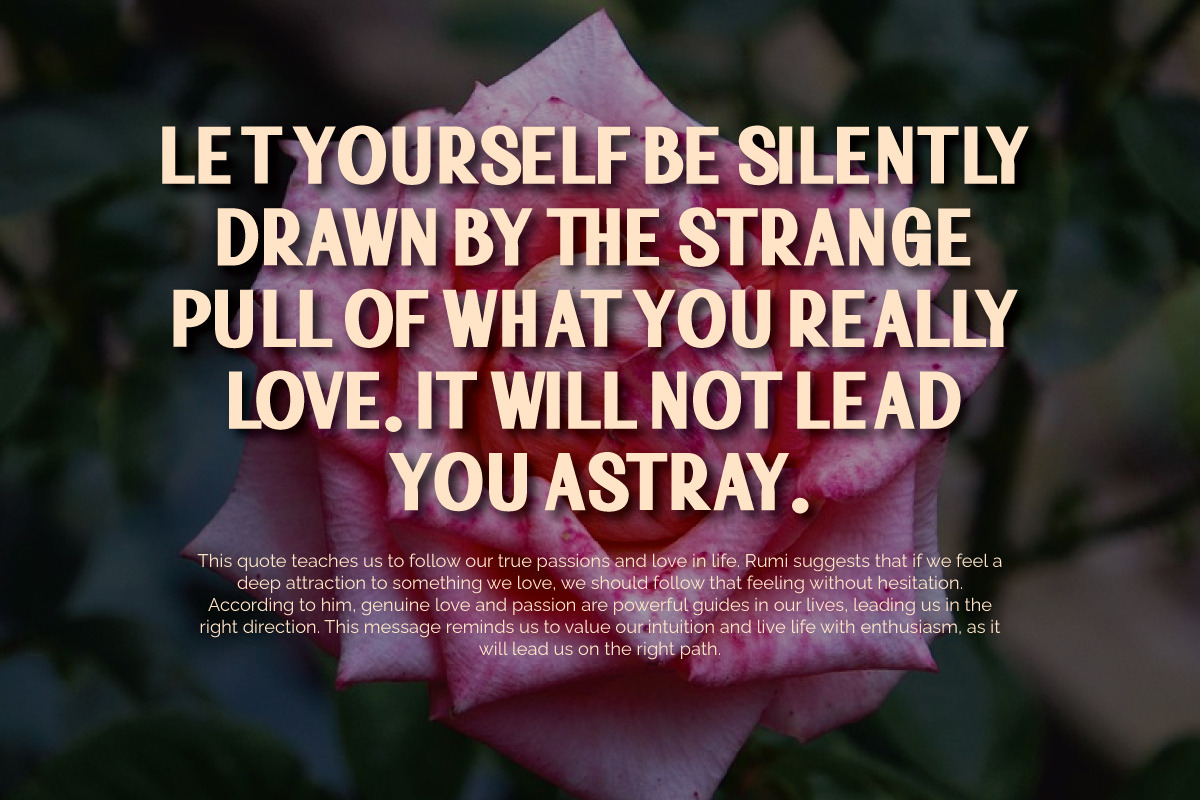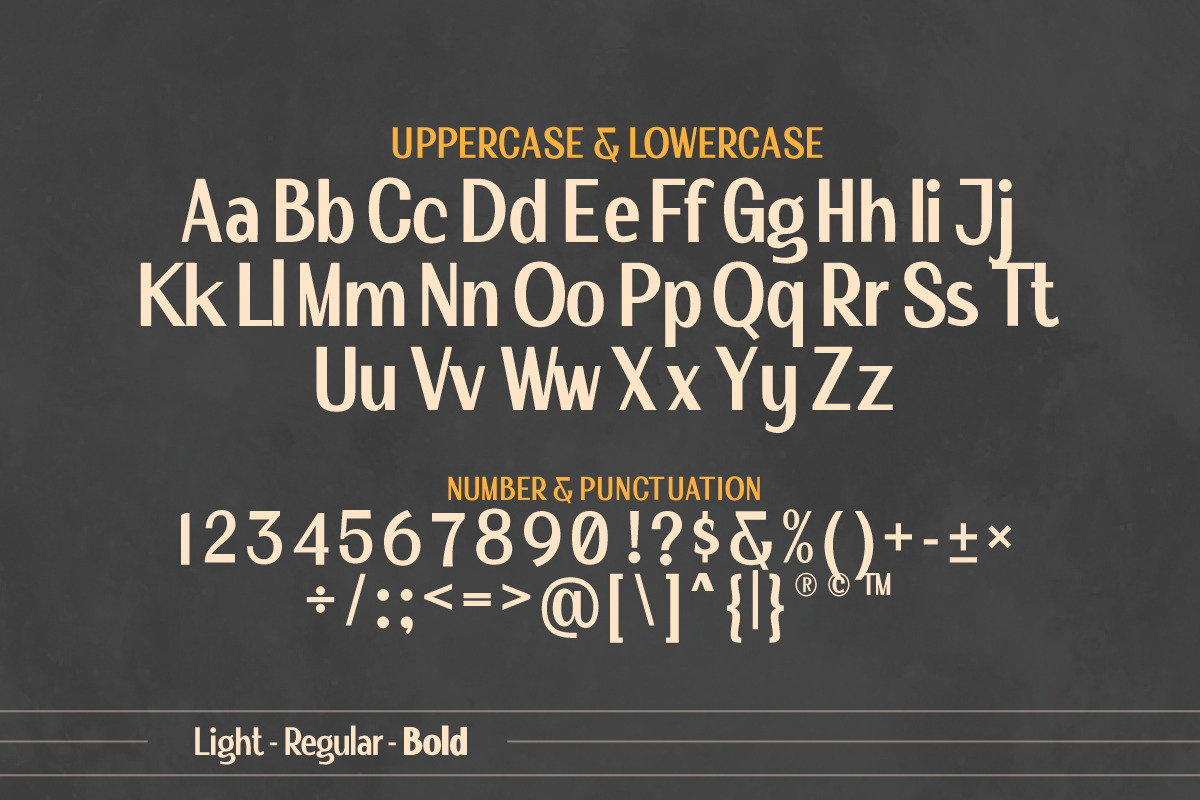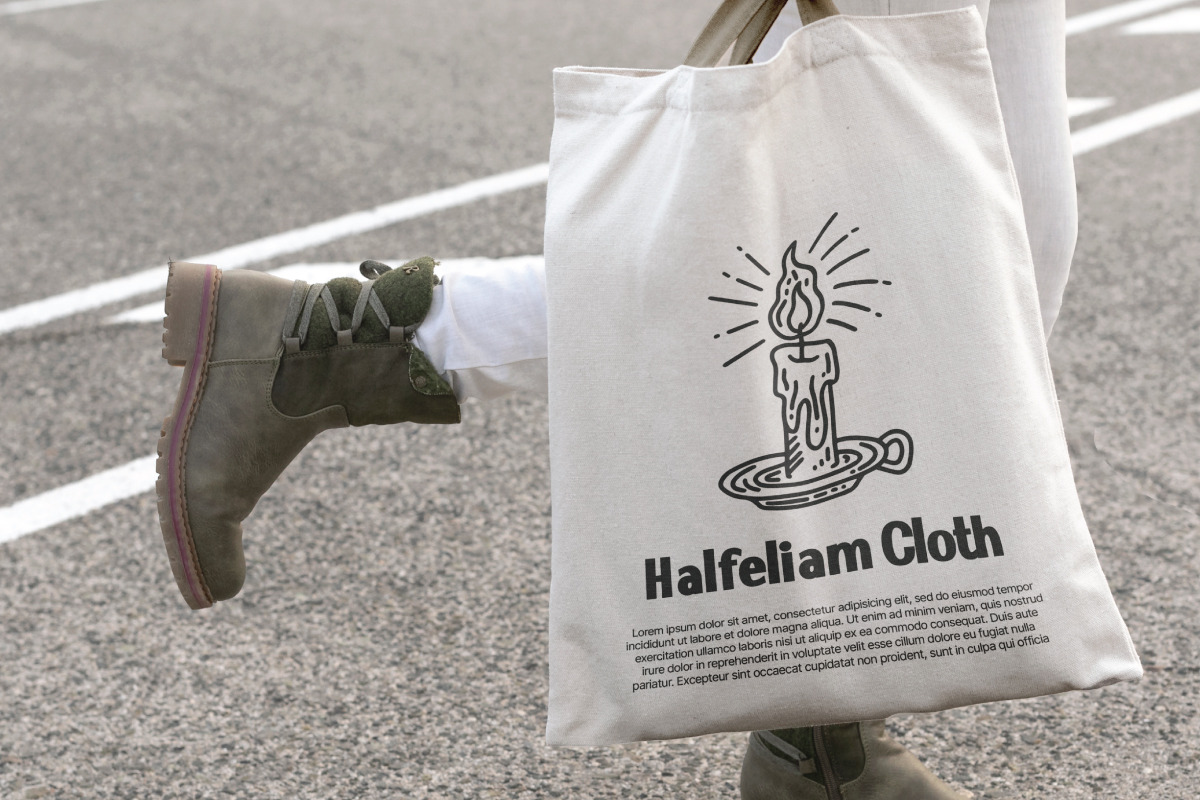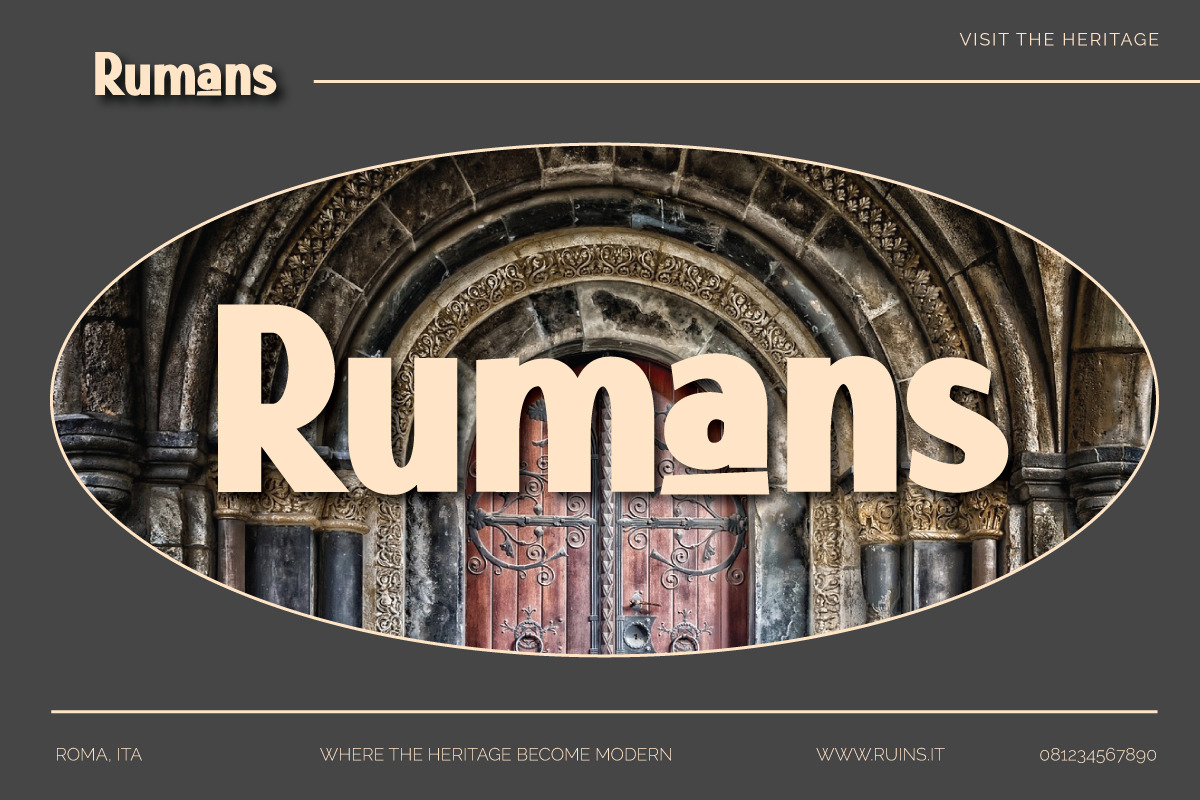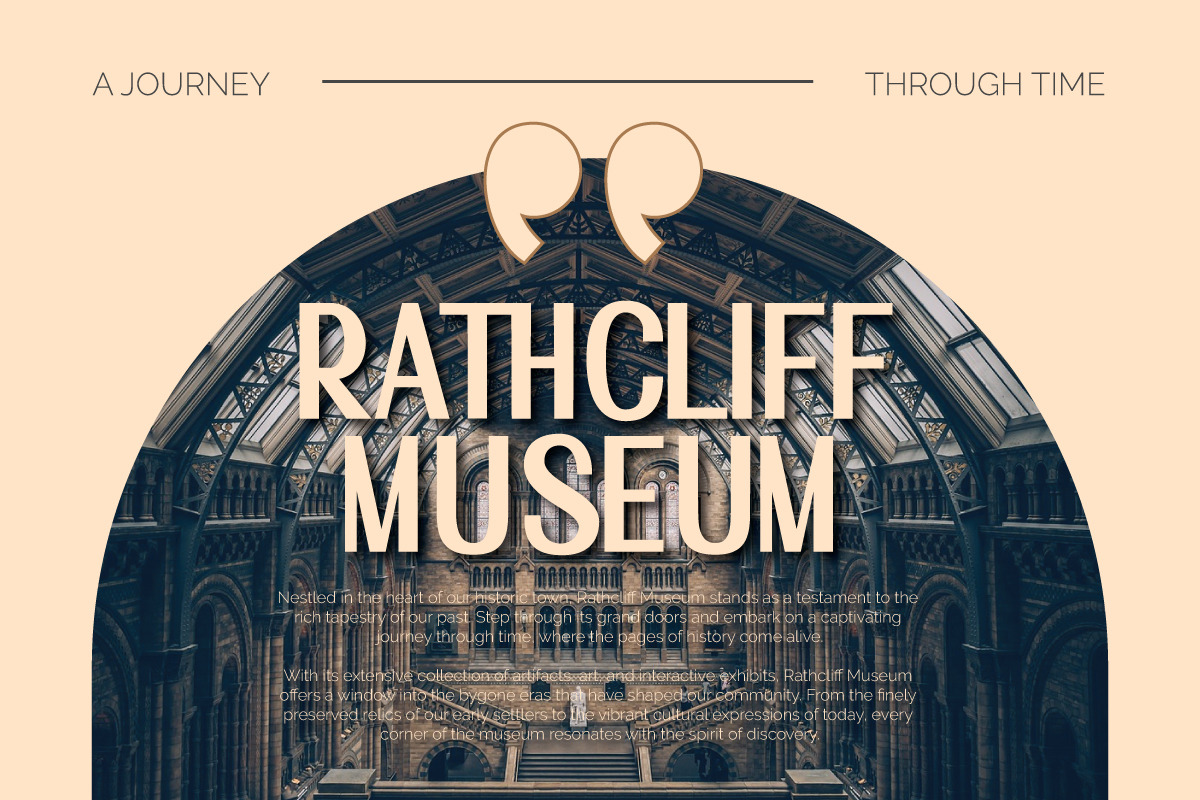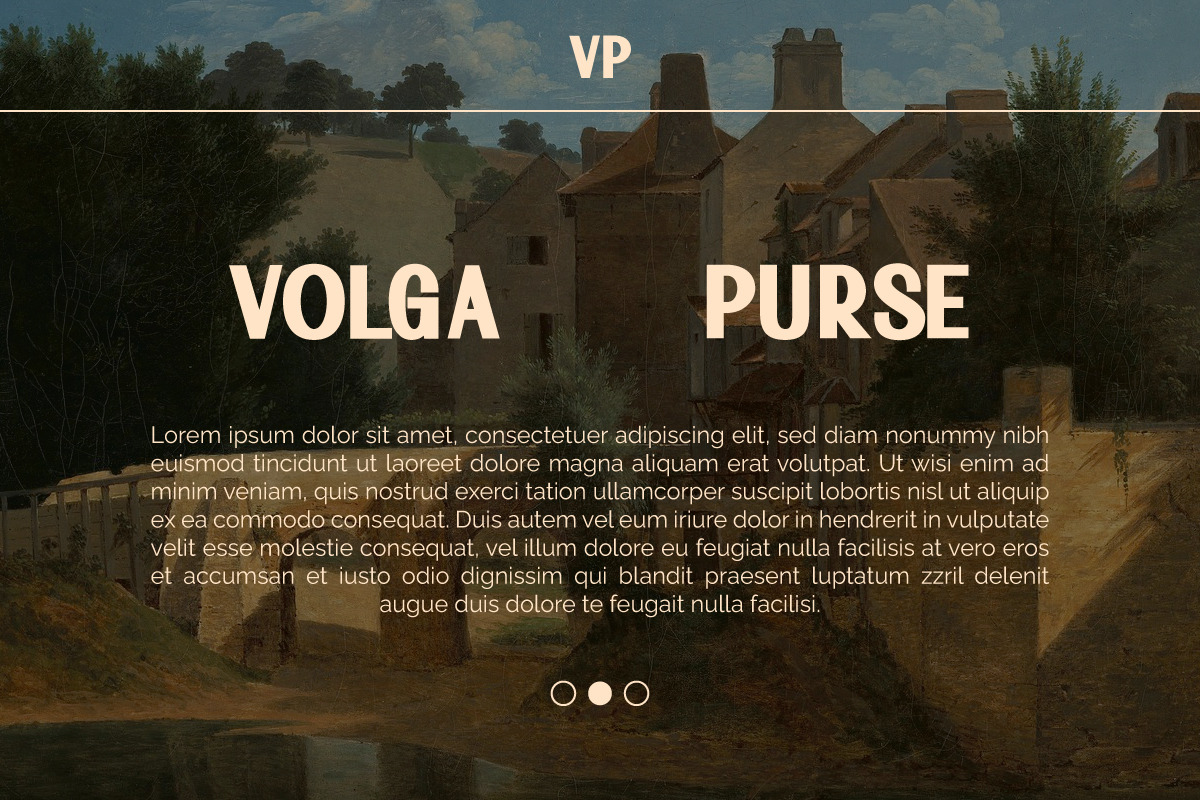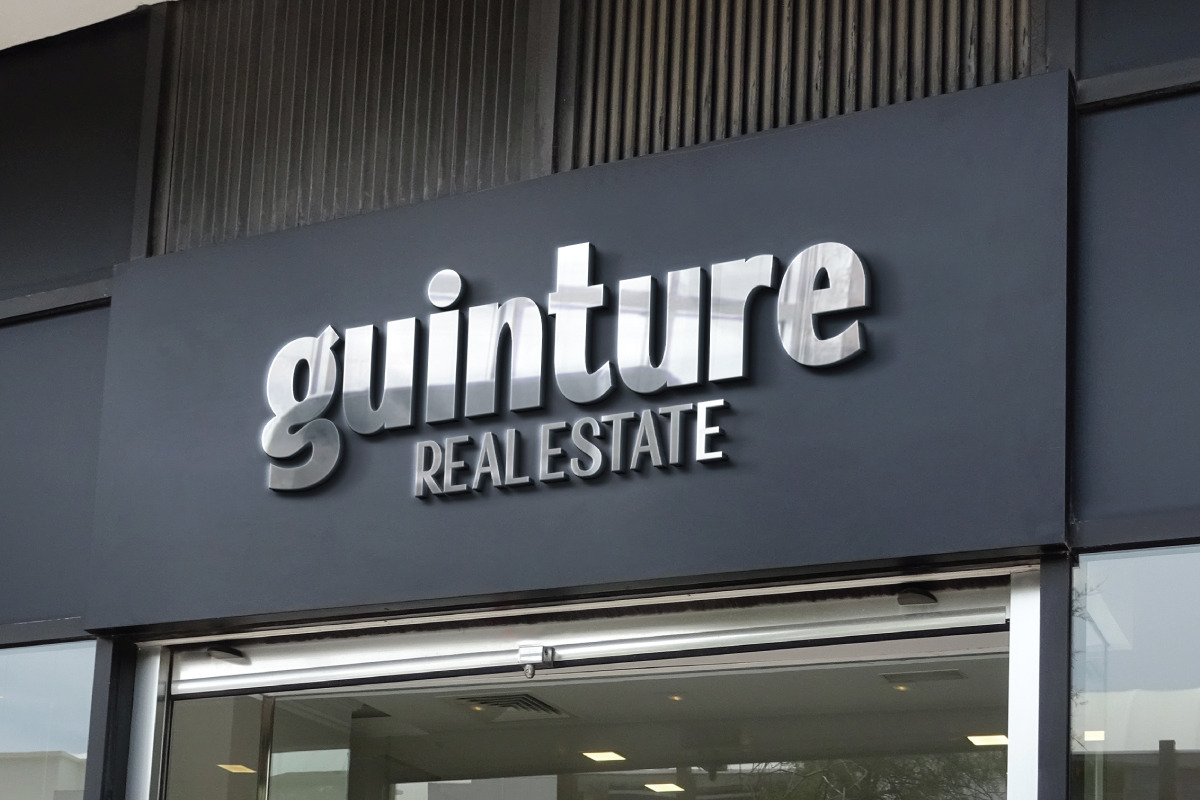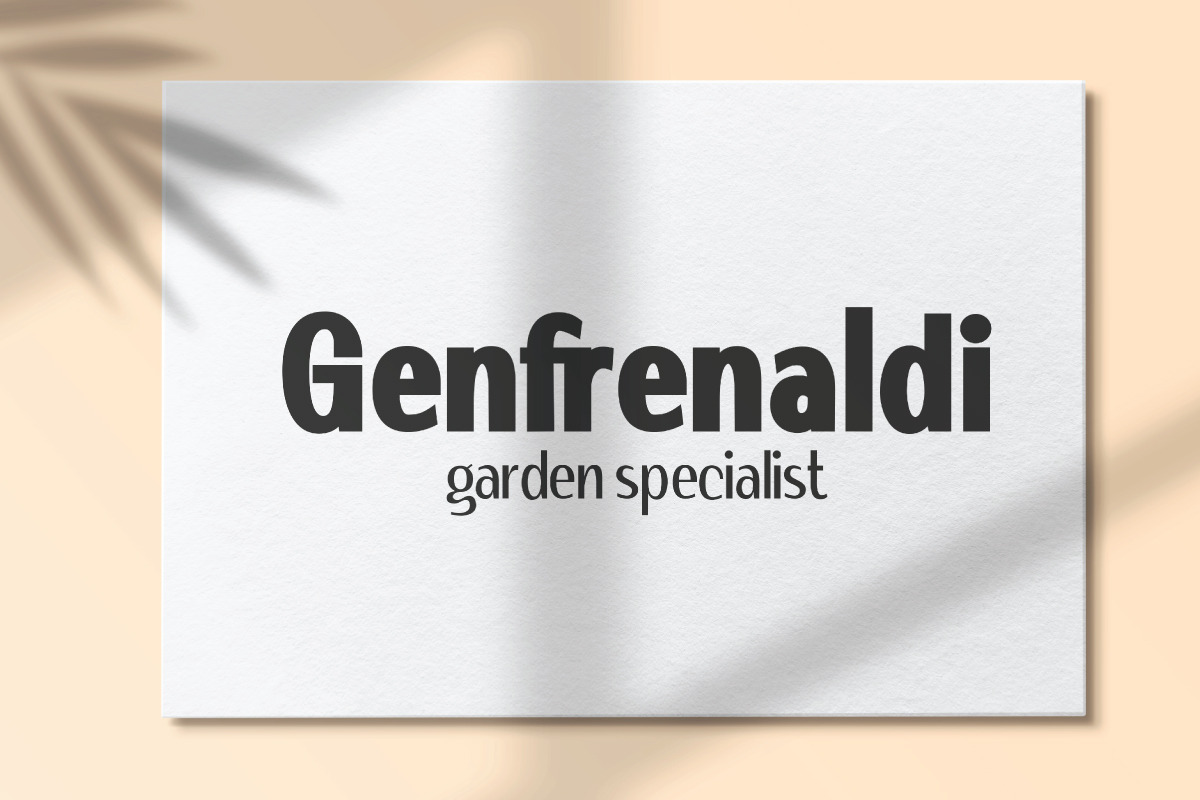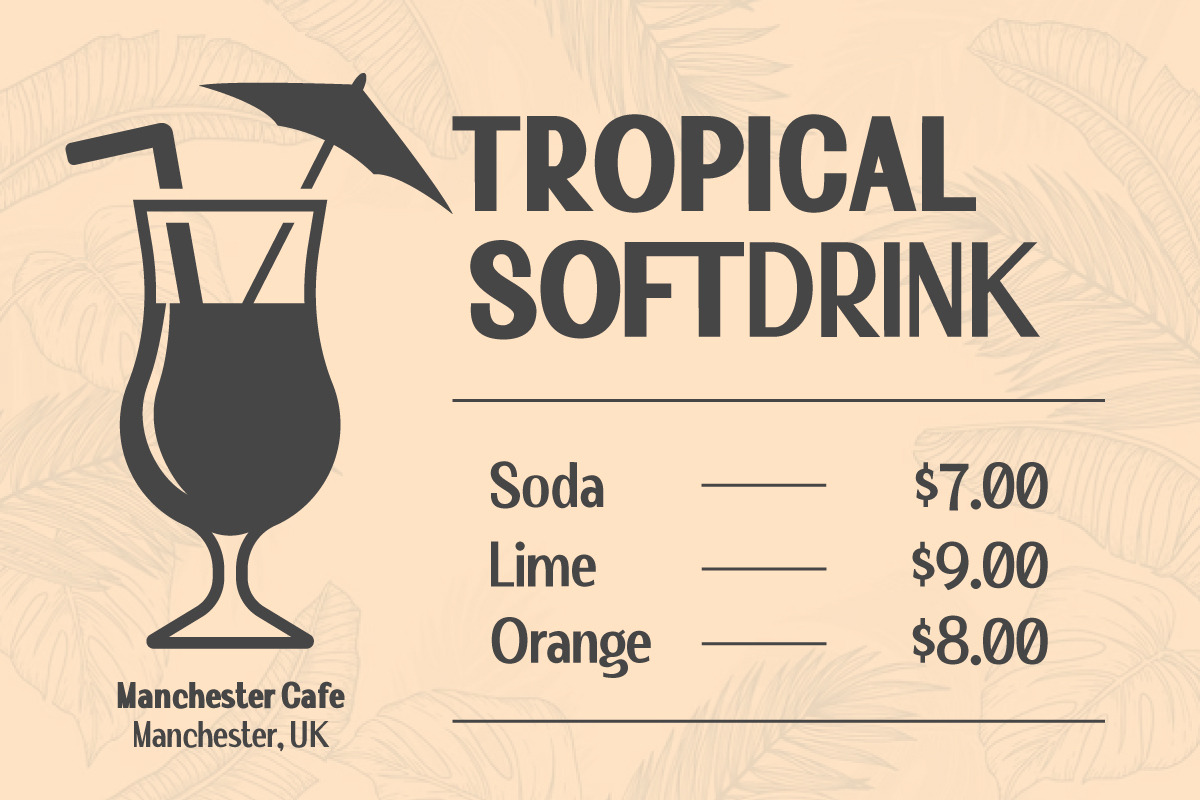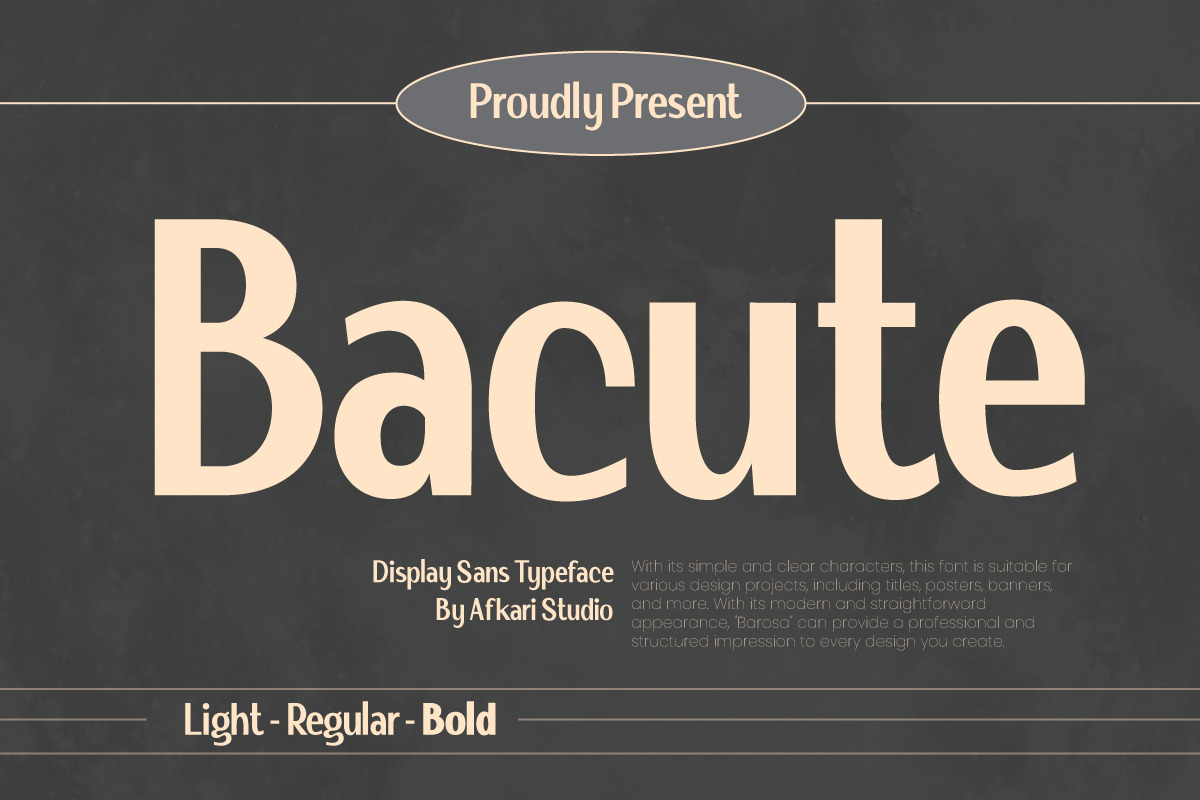
Bacute Display Sans Typeface
BACUTE Display Sans Typeface
BACUTE Display Sans Typeface offers a captivating blend of contemporary design and readability, ensuring your projects stand out with finesse and clarity.
Three Unique Styles: Enjoy the versatility of BACUTE's three styles - Light, Regular, and Bold. Each style adds its distinctive visual appeal to complement various design aesthetics.
Special Alternates: Unleash your creativity with alternative characters and glyphs that infuse uniqueness into your designs, allowing for personalized expressions.
Complete Character Set: BACUTE includes uppercase and lowercase letters, numerals, punctuation, and a range of essential glyphs for comprehensive design flexibility.
Multilingual Support: BACUTE ensures inclusivity by supporting a variety of special characters, catering to multiple languages, including ä, ö, ü, Ä, Ö, Ü, ß, ¿, and ¡.
BACUTE adapts flawlessly to an extensive range of design projects, including Logos, Posters, Product Labels, Cartoons, Comics, Editorial Designs, Website/Blog Elements, Social Media Posts, Packaging Designs, Social Media Subtitle And more!
Dive into the boundless potential that BACUTE Display Sans Typeface offers. Its modern aesthetic, coupled with a multitude of features, positions it as an invaluable asset for designers seeking to make an impactful impression without compromising readability. Embrace BACUTE to elevate your projects and captivate your audience with its distinctive charm!